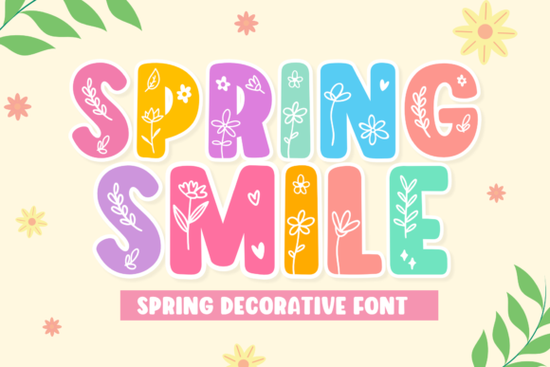
If you’re looking for a font that feels like sunshine and giggles rolled into one, Spring Smile Font might be exactly what your next project needs. It’s bold without being loud, thick but still friendly the kind of typeface that works beautifully on kids’ birthday invites, spring-themed classroom decor, or even playful packaging for handmade goods. Whether you’re designing for print-on-demand shirts, digital stickers, or scrapbook layouts, this decorative font adds charm without overwhelming your layout.
What makes it especially handy is how versatile it is. You don’t need to limit yourself to just “spring” projects think baby shower games, cartoon-style logos, nursery wall art, or cheerful social media quotes. The letters have personality without being hard to read, which is a rare combo in decorative fonts. And if you’ve ever struggled with fonts that look great as thumbnails but fall apart when scaled or printed, you’ll appreciate how clean and crisp Spring Smile stays at any size.
Who should use Spring Smile Font?
This isn’t just for professional designers. If you’re a crafter who sells printable wall art on Etsy, a teacher making classroom labels, or a small business owner designing your own product tags, this font fits right in. It’s also a solid pick for POD sellers imagine it on tote bags with phrases like “Little Sunshine” or “Garden Party Vibes.” The thickness gives it good visibility even on textured fabrics or busy backgrounds.
How does it compare to other playful fonts?
Some decorative fonts lean too far into whimsy and become hard to pair or scale. Others feel stiff despite their “fun” label. Spring Smile strikes a nice balance it’s clearly playful, but the letterforms are consistent and well-spaced. That means less tweaking in your design software and more time actually creating.
For example, if you tried Flame Font for a summer BBQ flyer, you’d get heat and energy. But for a Mother’s Day card or toddler activity sheet? Spring Smile’s softer curves and rounded terminals feel more appropriate. It doesn’t shout it smiles.
What kinds of projects work best with this font?
- Kids’ party printables invitations, cupcake toppers, favor tags
- Spring crafts garden signs, seed packet labels, Easter egg hunt clues
- Children’s educational materials flashcards, worksheets, classroom posters
- Handmade product branding soap labels, sticker packs, greeting cards
- Social media graphics quote posts, Instagram stories, Pinterest pins
One thing to keep in mind: because it’s thick and decorative, avoid using it for long paragraphs. Stick to headlines, short phrases, or accent text. Pair it with a simple sans-serif (like Montserrat or Quicksand) for contrast and readability.
Any tips for getting the most out of it?
Yes don’t be afraid to play with color. Pastels make it feel extra spring-like, but try it in mustard yellow or coral for a modern twist. You can also add subtle textures (like watercolor overlays or grain effects) to give it even more handmade charm.
If you’re using it digitally, test it at different sizes before finalizing. Some decorative fonts lose detail when shrunk but Spring Smile holds up surprisingly well, even at smaller point sizes. Just avoid going below 18pt for printed materials to keep everything legible.
Quick checklist before you start:
- ✅ Test readability at your intended size
- ✅ Pair with a clean, neutral font for body text
- ✅ Use sparingly let it shine as a headline or accent, not a paragraph font
Start small maybe design a single printable quote or a set of gift tags. Once you see how easily it fits into your workflow, you’ll find yourself reaching for it again and again. Especially when the project calls for something that feels warm, welcoming, and just plain happy.